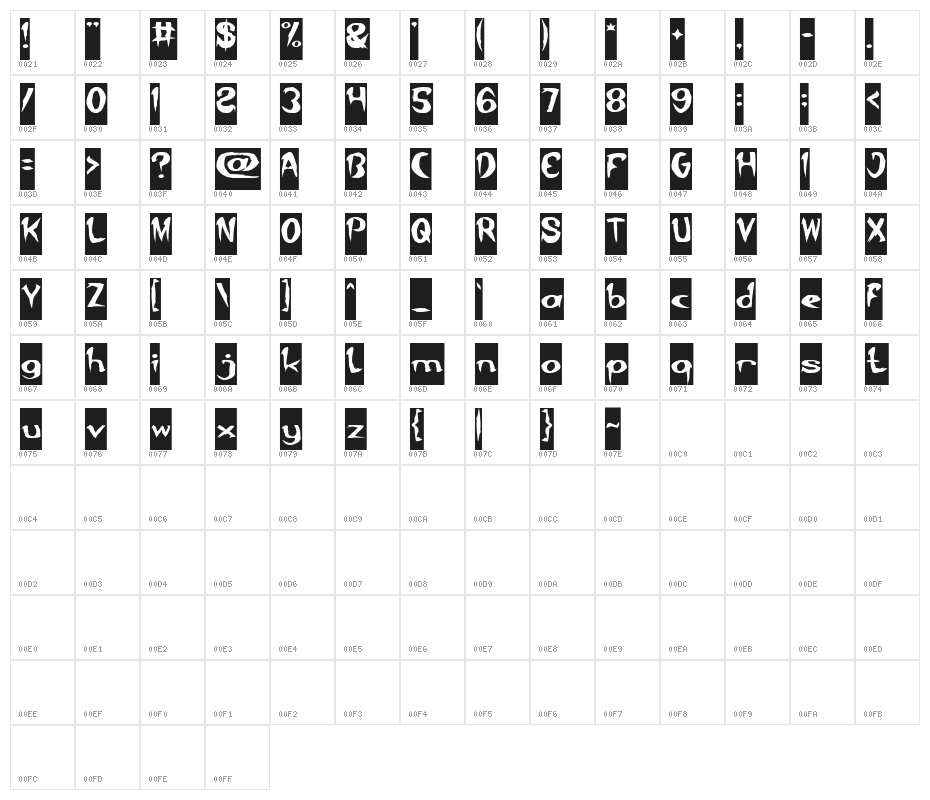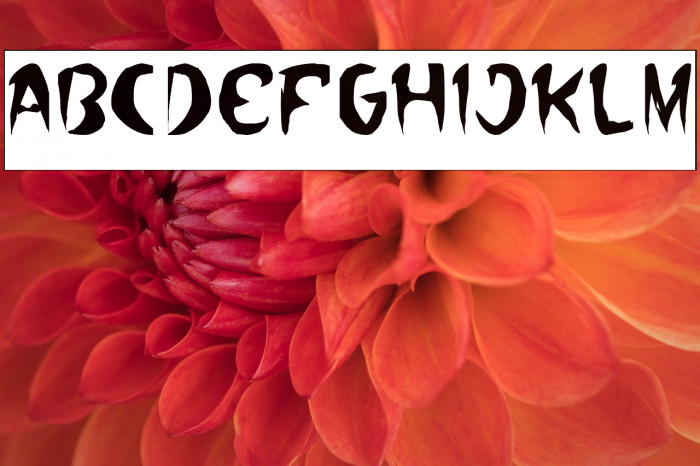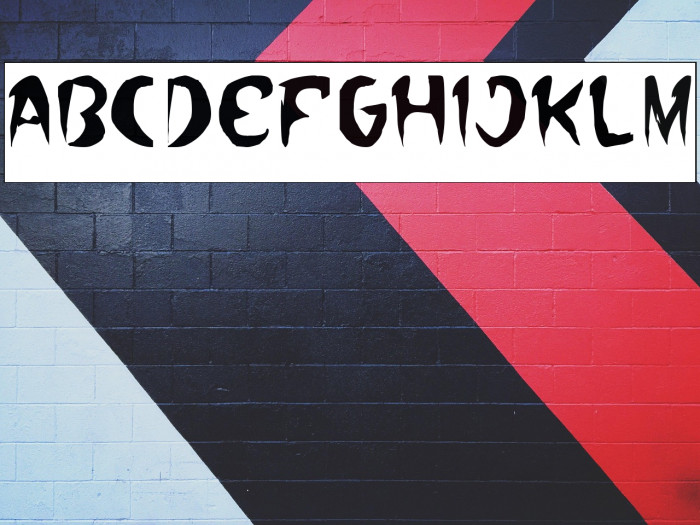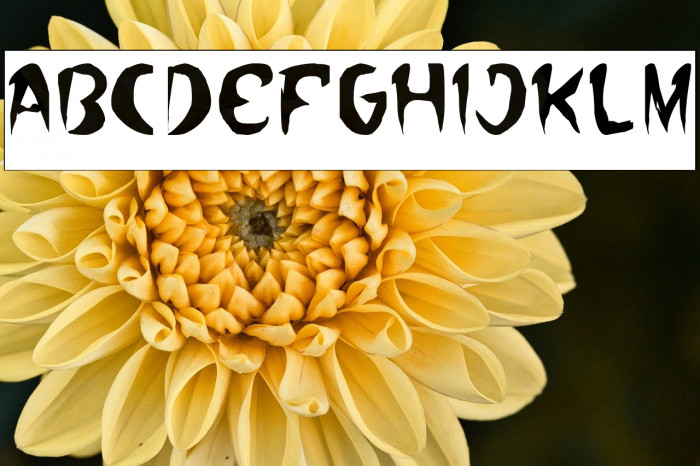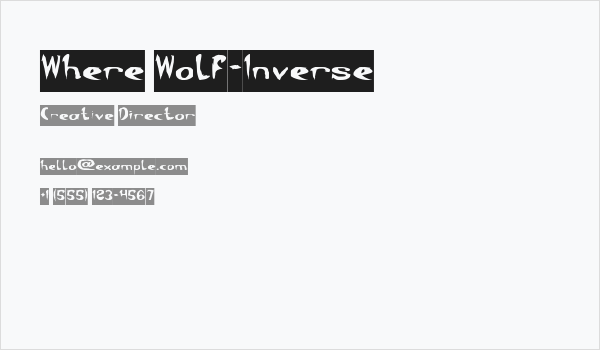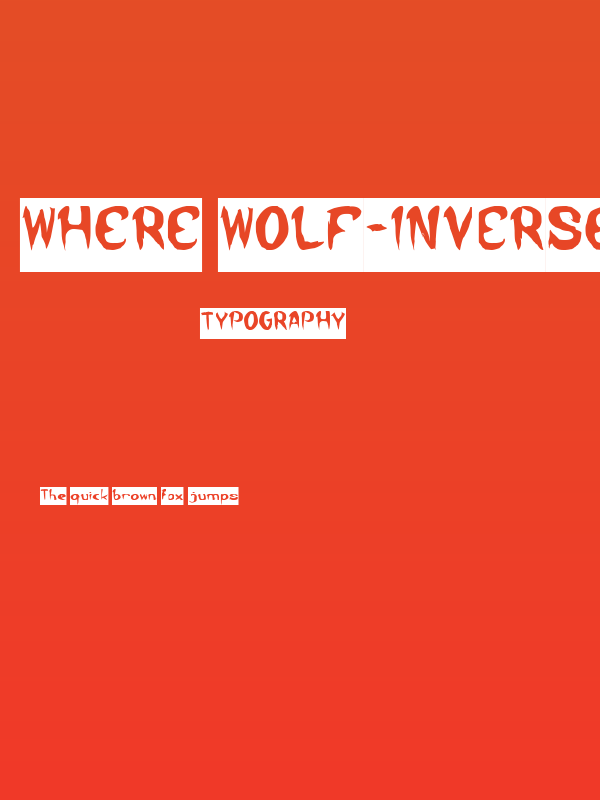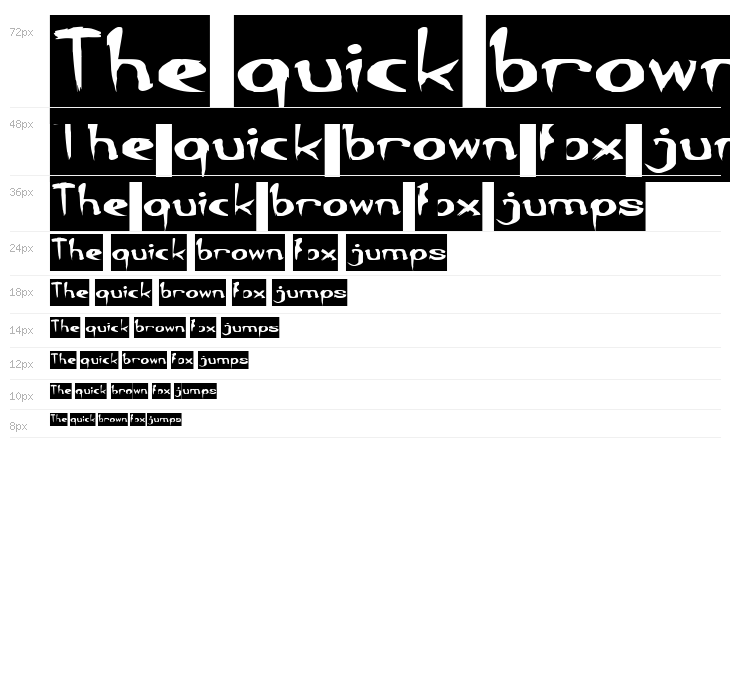
Where Wolf-Inverse Font
Where Wolf-Inverse Description
This font features a bold and dynamic style with sharp, jagged edges that evoke a sense of mystery and intrigue. The characters are designed with a high level of contrast, with thick strokes that taper into fine points, creating a dramatic and eye-catching appearance. The uppercase and lowercase letters maintain a consistent theme, with each character exhibiting unique, angular forms that suggest movement and energy. The numbers and special characters follow the same design principles, ensuring a cohesive look across all elements. This font is ideal for projects that require a strong visual impact and a touch of the unconventional.
| Proposed Projects | Perfect for horror-themed designs, Halloween posters, edgy branding, and album covers. |